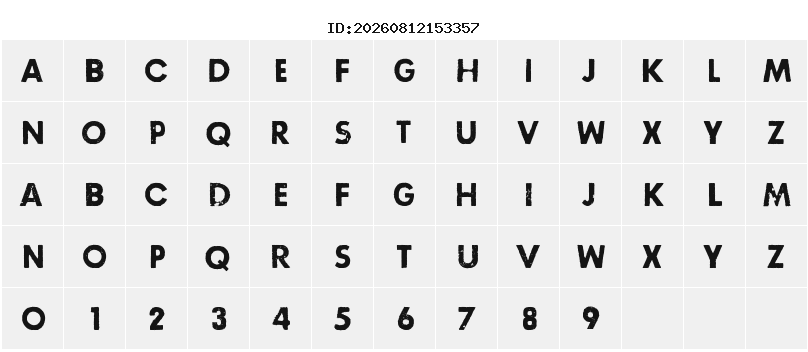
Right here, right now Preview
• Font Name: Right here, right now
• Full Font Name: Right here, right now
• Version: Version 1.00 October 18, 2015, initial release
About Right here, right now.ttf
Right here, right now.ttf is a modern, elegant sans-serif font designed for ultimate readability and visual harmony. Perfect for branding, headlines, web design, and print materials.